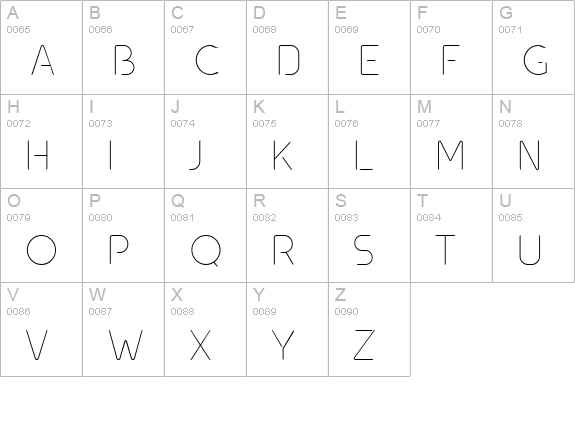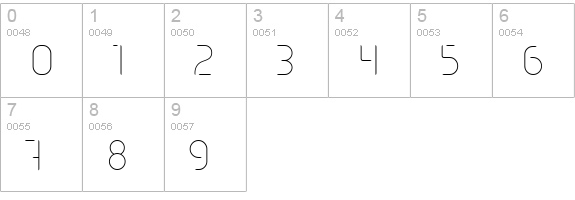
oxo-Thin Font Details
oxo-Thin is a delicate, low-contrast variant in the oxo typeface family \xE2\x80\x94 well suited to fashion editorial, minimal branding, and high-contrast display.
The oxo-Thin font is a sleek and modern typeface that exudes elegance and sophistication. Its thin and delicate strokes make it perfect for creating a sense of refinement and style in any design project. This font is ideal for use in branding, invitations, logos, and more. What's even better is that the oxo-Thin font is completely free to download at FontsMarket.com. So whether you're a designer looking to add a touch of class to your creations or simply someone who appreciates quality typography, this font is a must-have in your collection. Don't miss out on the opportunity to enhance your designs with the free oxo-Thin font today!